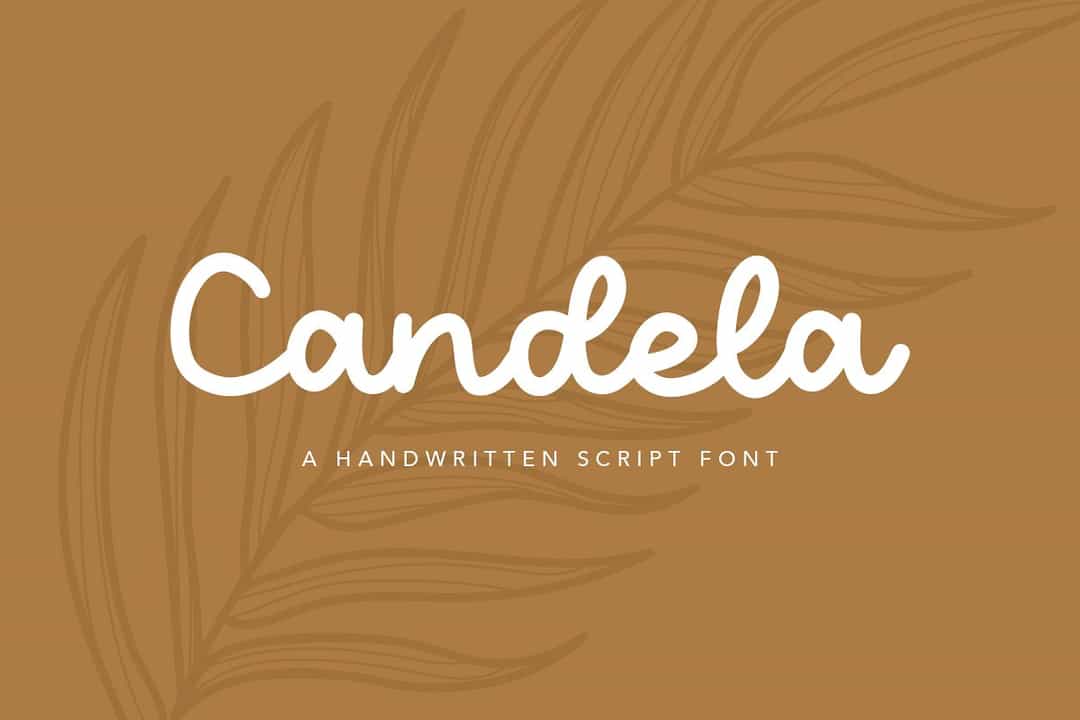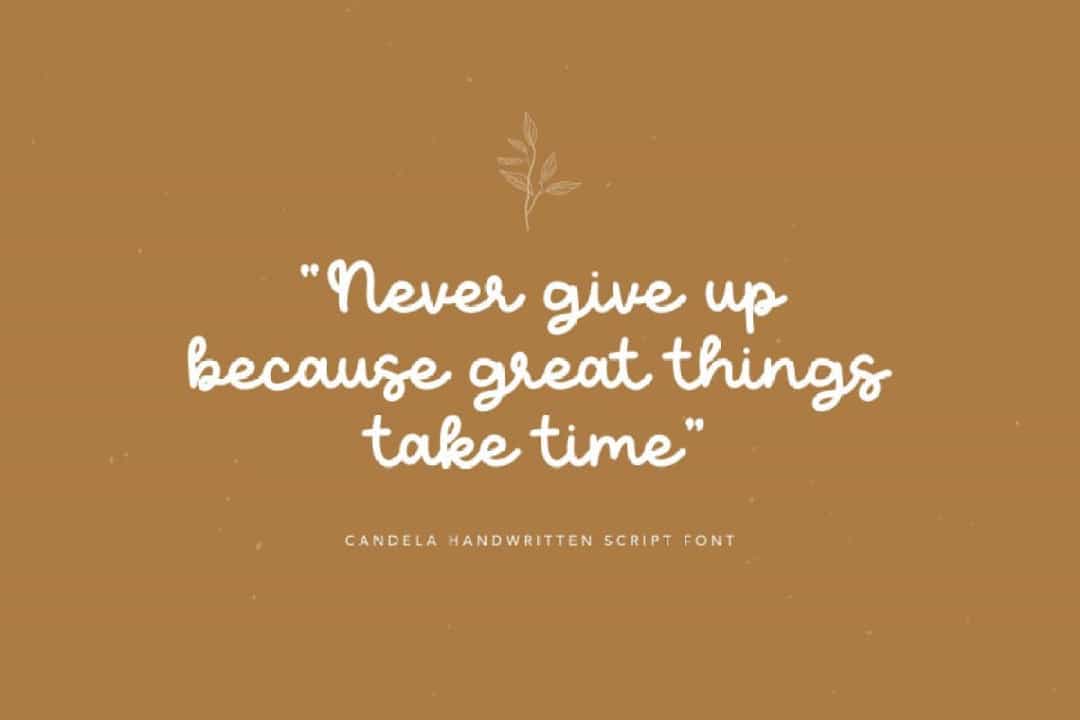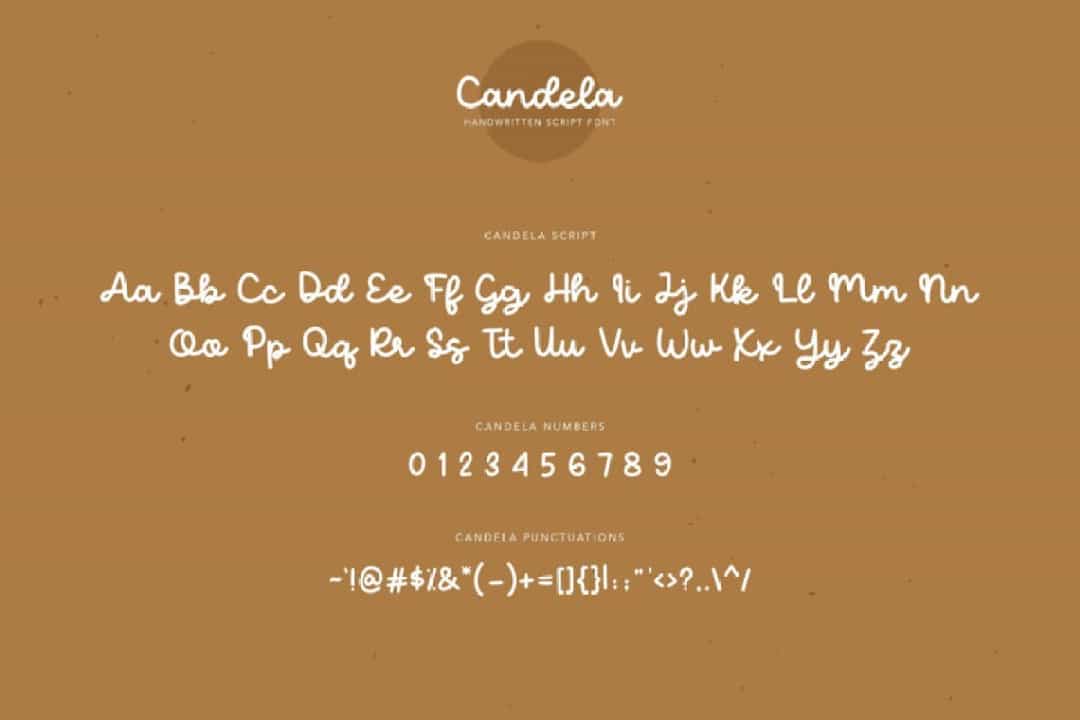
Discover Candela Font, part of the Handwritten Script Monoline Personal collection—a versatile and unique font perfect for adding a personal touch to your projects. Download it for free and enjoy crafting designs with style, from invitations to social media posts. This font is available exclusively for personal use, giving you the freedom to create without limits. Unlock your creativity with Candela Font today!
Candela Handwritten Script Font! It is our pleasure to introduce Candela is a soft and elegant handwritten font suitable for logos, branding ads, social media posts, and quotes and even signatures, packaging of products, design labels for products, photography of boutiques, fashion, watermark for boutiques fashion, etc.